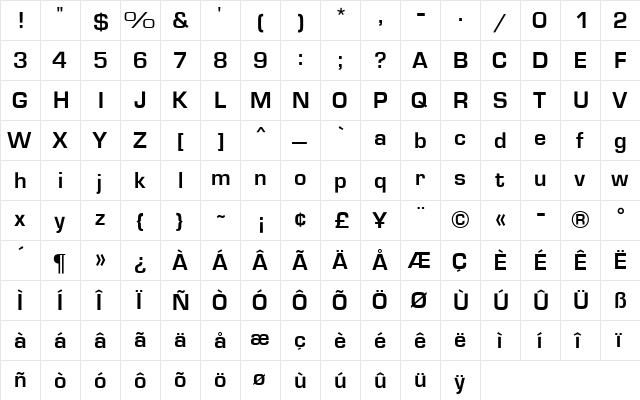
Eurostile MN Medium
Design Context for Eurostile MN Typeface
Eurostile MN is a composed and adaptable typeface that performs quietly and consistently across a wide range of design contexts.